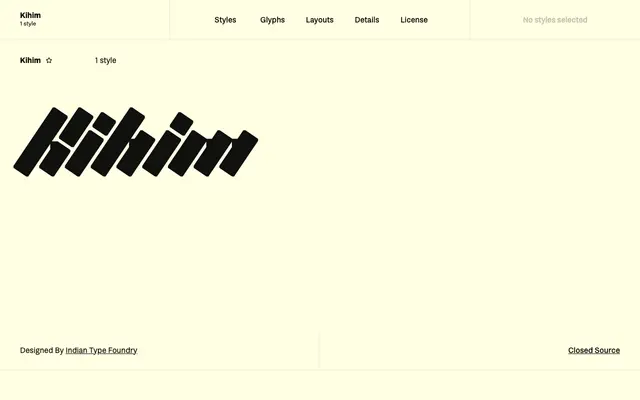
Kihim
Fontshare · Hitesh Malaviya · 2021
A single-weight display typeface by Hitesh Malaviya built on an extreme diagonal grid, conceived as a typographic homage to Indian artist Nasreen Mohamedi.
Every letterform in Kihim is set on a sharp clockwise angle, with stroke terminals that echo that tilt to produce a rotalic effect as though each character has been physically rotated. The design draws directly from Mohamedi's grid-based drawings, in which intervals between lines carry as much weight as the lines themselves. At small sizes text can appear abstract or illegible; as the eye adjusts to the rhythm of thick and thin diagonals, the letterforms resolve, much as Mohamedi's own compositions reward sustained looking.
Categorised explicitly as Display by Fontshare; a single-weight decorative typeface built on an extreme diagonal grid with rotalic letterforms, making it purely ornamental and unsuited to any text role.